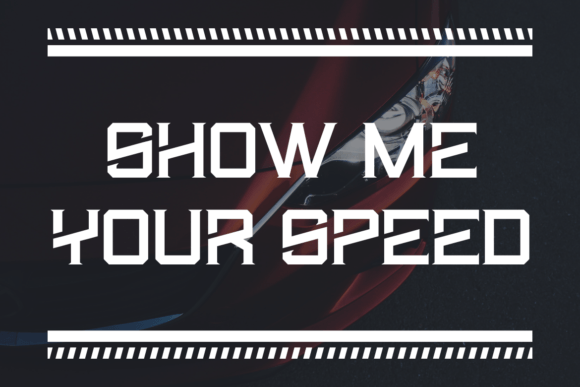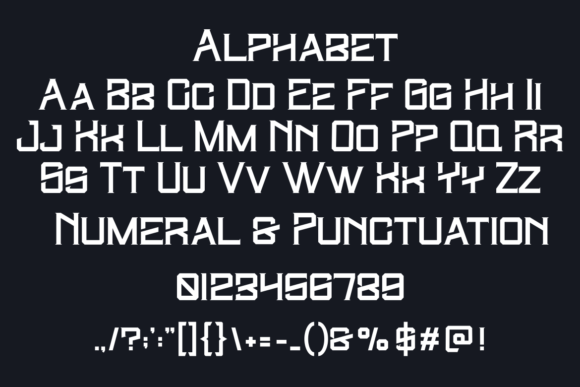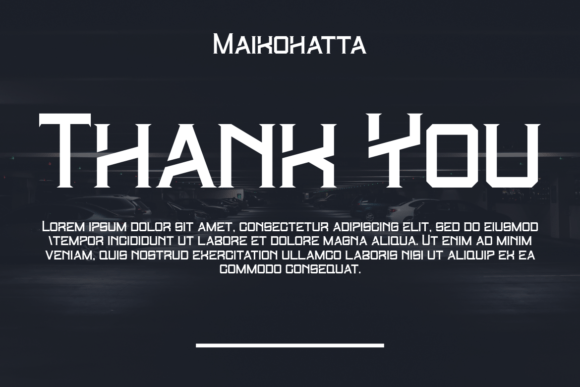
Unleash Your Creativity with Entity Font
Have you ever been in the midst of a creative project, staring at a blank page, desperately searching for the perfect font to bring your vision to life? We’ve all been there. The frustration is real, but the excitement is even greater when you stumble upon that one font that makes everything click. For designers, the hunt for the perfect font is a constant pursuit, and we’re thrilled to introduce you to a game-changer: Entity Font.
This masterfully designed display font is more than just a pretty face – it’s a powerhouse of creativity. Entity Font is crafted to elevate your designs, making it an invaluable addition to any designer’s toolkit. Whether you’re working on a logo, brochure, or social media campaign, Entity Font is the perfect companion to help you achieve your creative goals.
Entity Font Key Features
- Unique Character Set: Entity Font features a unique character set that includes a wide range of symbols, icons, and glyphs, making it ideal for use in data visualization, infographics, and other applications where a high level of customization is required.
- Font Weight and Style: Entity Font offers a range of font weights and styles, including light, regular, bold, and italic, allowing users to customize the font to suit their specific needs.
Entity Font Review
At first glance, Entity Font is quite visually appealing. I love how it combines sleek lines with a hint of elegance ✨. The font’s versatility makes it suitable for a wide range of applications, from business to creative projects.
The font’s high-quality design, with its extensive character set and various weights, makes it an excellent choice for designers who value consistency and precision ✨. Entity Font’s support for various languages and its excellent readability make it a great option for digital products.
- ⚠️ Some users may find the font too modern or overused, which could limit its creative potential.
Entity Font is a solid addition to any designer’s toolkit, offering a stylish and versatile solution for various design needs. While it has its limitations, the font’s strengths make it well worth considering for projects requiring a sophisticated and modern aesthetic. With its extensive character set and high-quality design, Entity Font is sure to become a go-to choice for many designers.